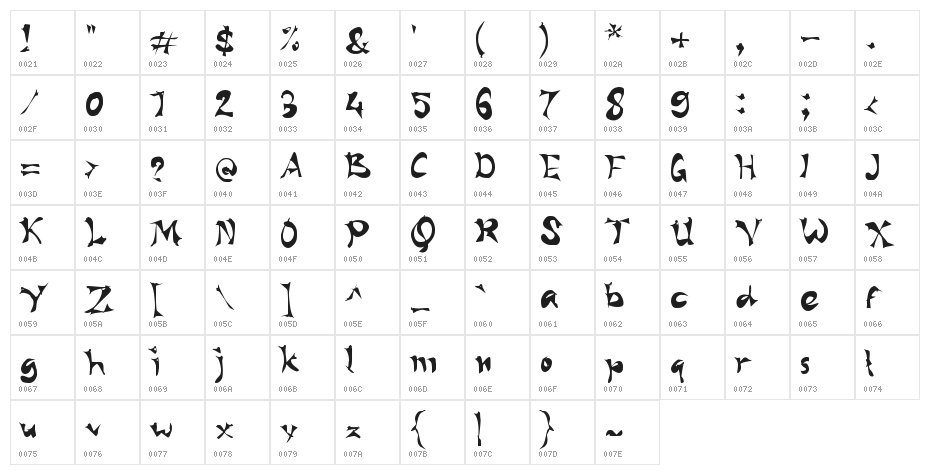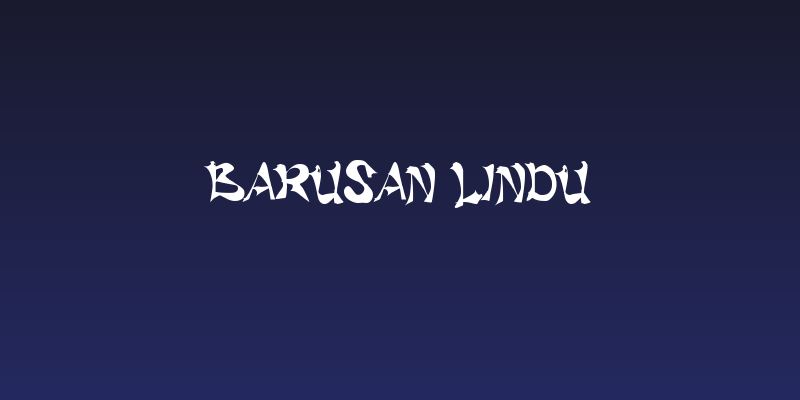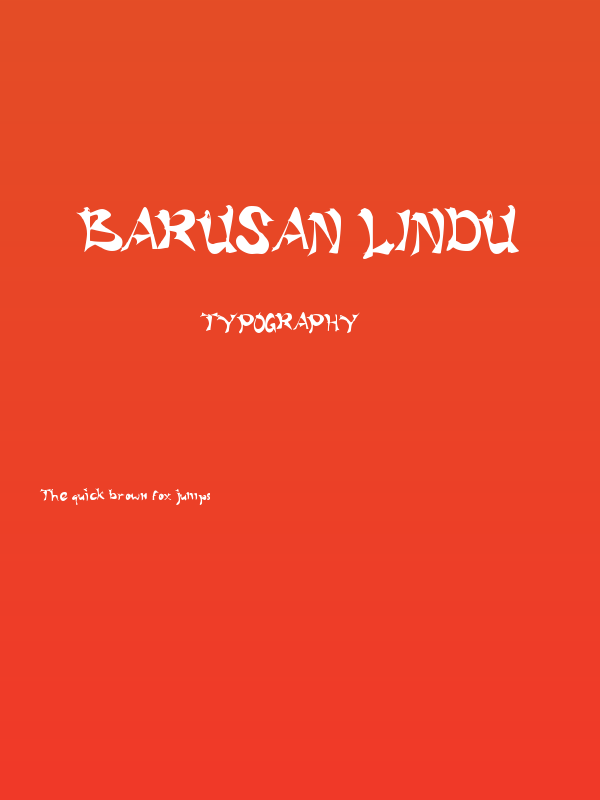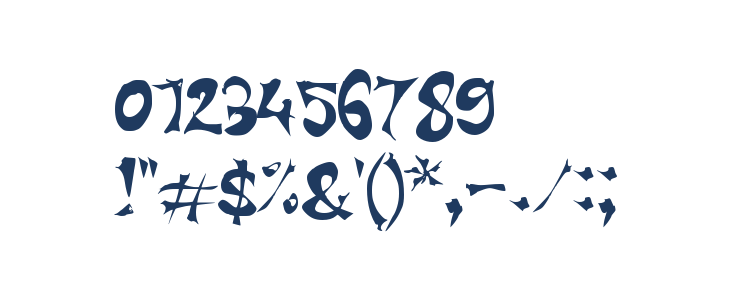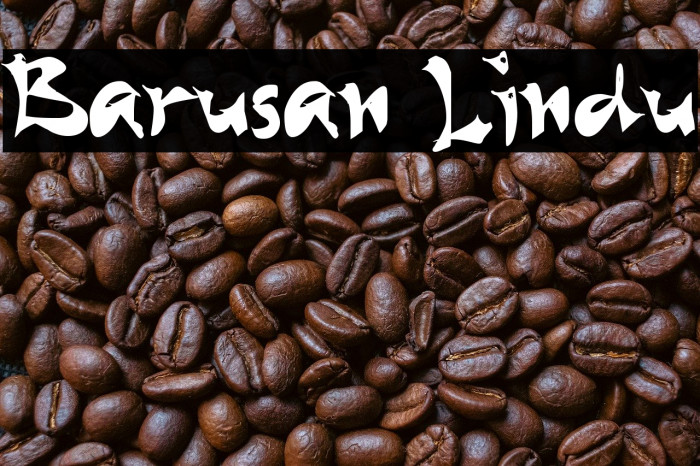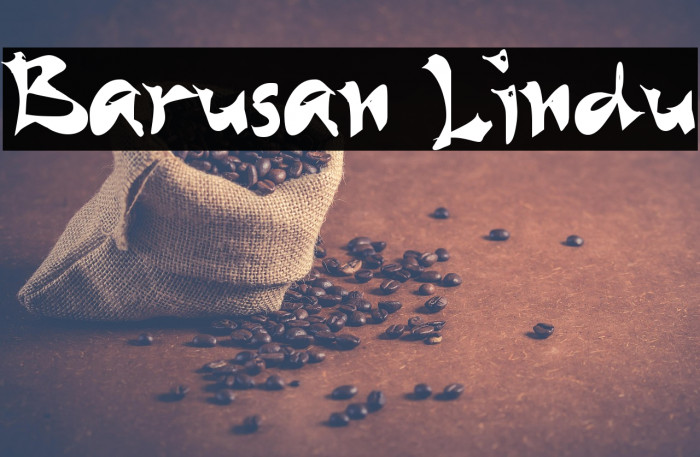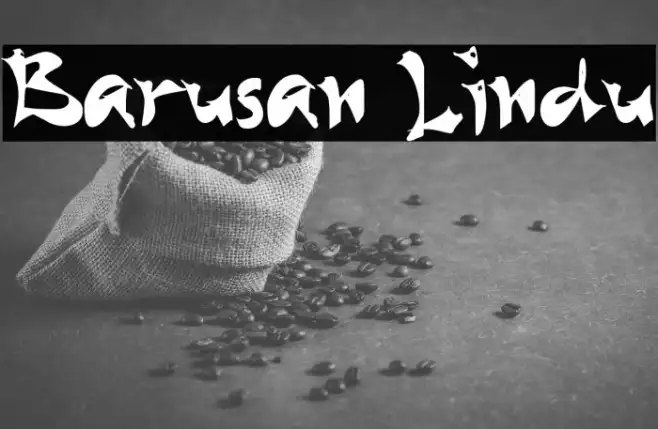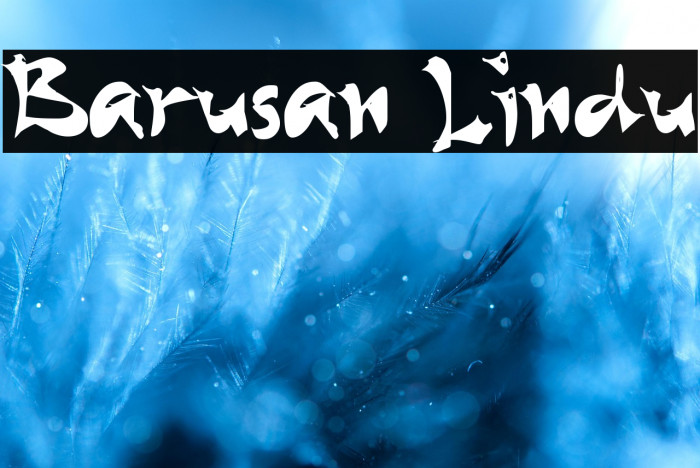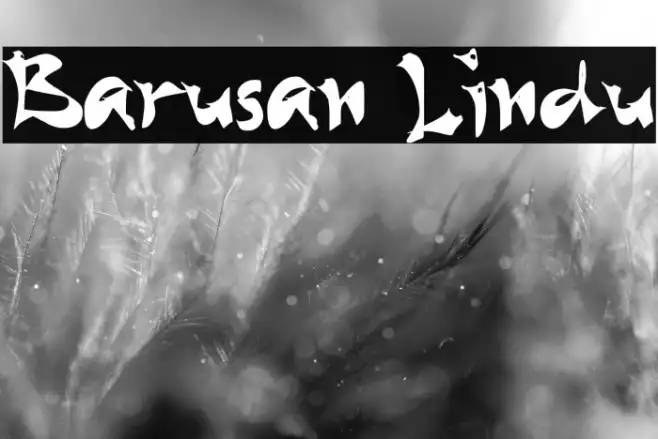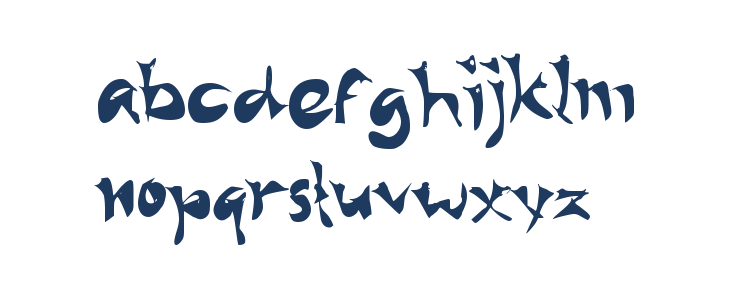
Barusan Lindu Font
Barusan Lindu Description
This font features a bold and dramatic style with sharp, angular edges and a slightly chaotic appearance. The characters are highly stylized, with exaggerated curves and points that give it a unique, almost tribal or gothic feel. The uppercase letters are particularly striking, with a strong presence that commands attention. The lowercase letters maintain the same edgy aesthetic, ensuring consistency throughout the typeface. Numbers and special characters are equally bold, making them stand out in any design. This font is perfect for projects that require a strong, artistic statement.
| Overall Style | Gothic, Artistic |
| Proposed Projects | Ideal for album covers, posters, tattoos, or any design needing a bold, artistic flair. |